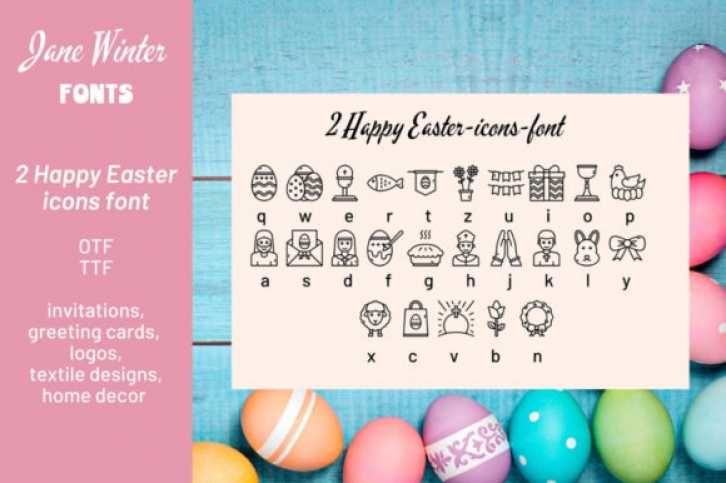
Happy Easter Icons is a cute dingbats font with an Easter holiday theme. Use this font as borders, dividers, and frames on your website, invitations, home decor POD or add it to your creative ideas and make your designs outstanding!